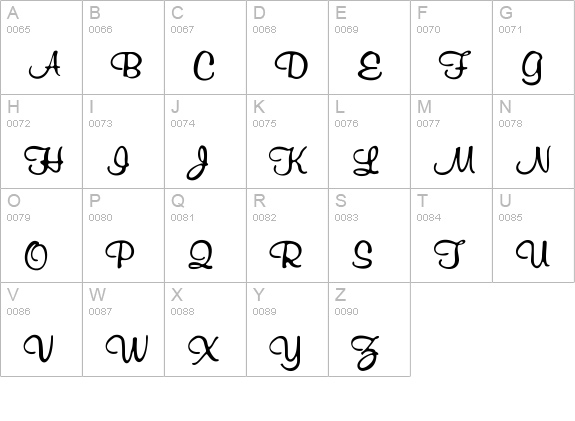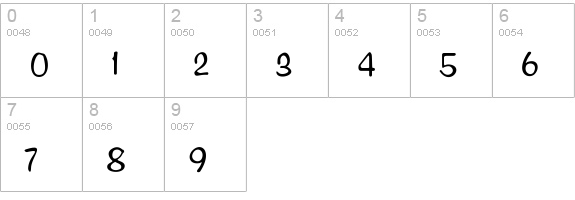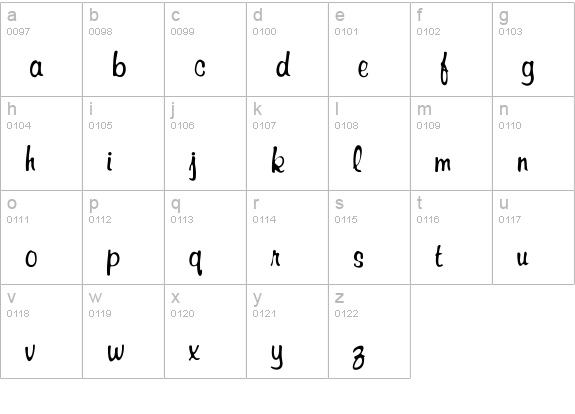
MR Font Details
MR font is a versatile and modern typeface that is sure to make your projects stand out. With its sleek lines and contemporary feel, this font is perfect for a wide range of design applications. Whether you're creating a logo, poster, or website, MR font will add a touch of sophistication and style to your work. The best part? MR font is completely free to download at FontsMarket.com! This means you can easily access this high-quality font without having to break the bank. Don't miss out on the opportunity to enhance your designs with MR font - download it today and take your projects to the next level.